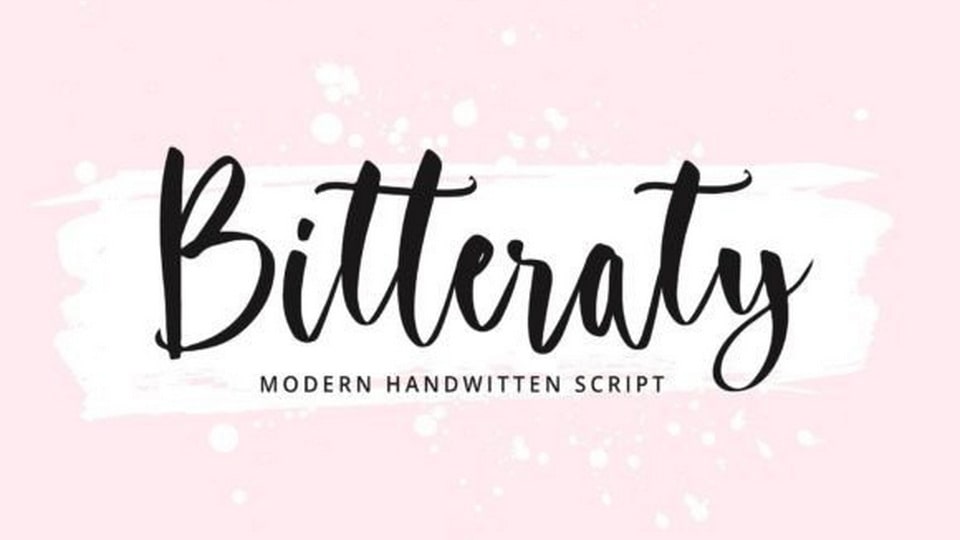
Download Bitteraty font, a flowing handwritten typeface, described by an elegant touch, perfect for your favorite projects. With its incredibly distinct and timeless style Bitteraty font is perfect to create spectacular designs